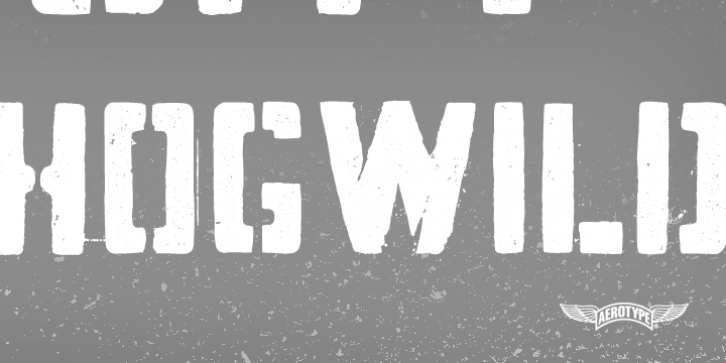
Stephen Miggas
Aerotype
The OpenType version of
Hogwild
has 52 ligature features that automatically substitute a unique pair of distressed characters when any upper or lower case letter is keyed twice in a row.